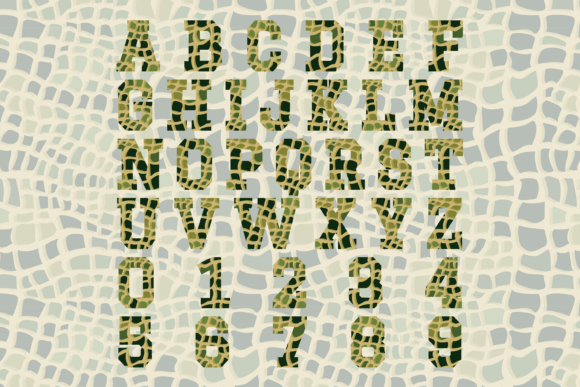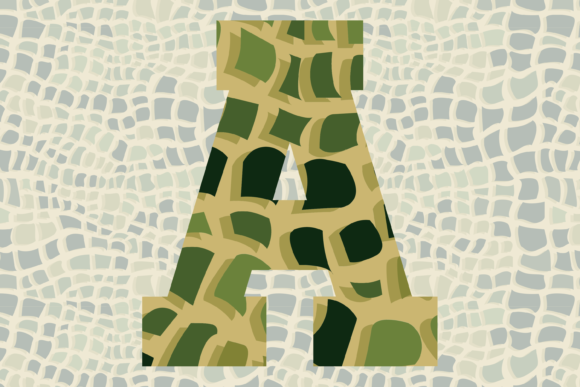
Introducing Alligator Font: Add a Scaly Touch to Your Designs!
Are you tired of using the same old fonts for your designs? Do you want to add a playful and whimsical touch to your creations? Look no further than the Alligator Font! This incredibly cool color font features adorable alligator prints that are sure to make your designs stand out. In this article, we’ll dive into the details of this amazing font and explore its compatibility with popular design software.
What is Alligator Font?
Alligator Font is a unique and eye-catching color font that contains cute alligator prints. This font is perfect for designers, crafters, and DIY enthusiasts who want to add a fun and quirky element to their creations. Whether you’re designing custom party invitations, crafting handmade cards, or creating unique gifts, Alligator Font is an amazing choice.
Key Features of Alligator Font
• Color Font (Opentype-SVG): Alligator Font is a color font that uses the Opentype-SVG format, which allows for vibrant and detailed designs.
How to Use Alligator Font in Your Designs
Using Alligator Font in your designs is easy! Here are a few examples of how you can incorporate this font into your creations:
• Custom Party Invitations: Add a playful touch to your party invitations with Alligator Font. Use it to create custom designs that feature cute alligator prints.
• Handmade Cards: Take your handmade cards to the next level with Alligator Font. Use it to add a fun and whimsical element to your designs.
• DIY Crafts: Alligator Font is perfect for DIY crafts, such as scrapbooking, journaling, and mixed media art.
Tips and Tricks for Using Alligator Font
Here are a few tips and tricks to help you get the most out of Alligator Font:
• Experiment with Different Colors: One of the best things about Alligator Font is that it’s a color font. Experiment with different colors to find the perfect combination for your design.
• Use it with Other Fonts: Alligator Font pairs well with other fonts, so don’t be afraid to experiment with different combinations.
In conclusion, Alligator Font is an amazing addition to any designer’s or crafter’s toolkit. With its cute alligator prints and compatibility with popular design software, this font is sure to inspire creativity and fun. Whether you’re a seasoned designer or just starting out, Alligator Font is a great choice for anyone looking to add a playful touch to their designs.